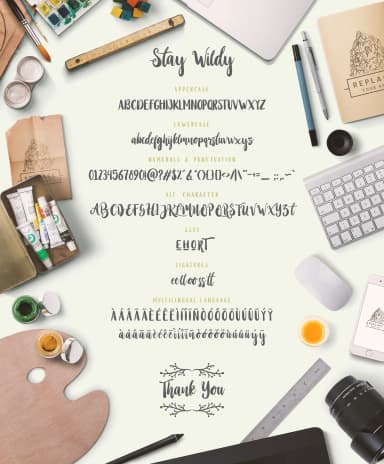
Stay Wildy by Dikas Studio is a flowing script typeface that channels the organic energy of contemporary hand-lettering and modern calligraphy. Inspired by the natural variations and movement found in penmanship, this font brings authentic calligraphic character to digital designs while maintaining strong legibility across different sizes and applications. This expressive script excels in creating memorable custom event invitations, where its distinctive letterforms add warmth and personality to special occasions. Brand designers leverage its handwritten appeal for luxury cosmetics packaging, where authenticity resonates with conscious consumers seeking artisanal quality. The font transforms social media graphics into personal, engaging content that stands out in crowded feeds, particularly effective for creative entrepreneurs building visual brands. From boutique product labels to personalized greeting cards and hand-lettered wedding signage, Stay Wildy brings a crafted, intimate quality that feels both contemporary and timeless. The flowing nature of these letterforms makes Stay Wildy adaptable to both refined and casual design contexts, working equally well for upscale stationery and DIY creative projects. Its design philosophy bridges the gap between formal calligraphic tradition and modern expressiveness, giving designers a tool that never feels outdated or overly ornate. Get Stay Wildy on Creative Fabrica and experience how genuine hand-lettered typography transforms your creative work.
- Elegant, Flowing, Stay Wildy
Stay Wildy Font is a script font that shines as a display or heading face. Pair it with a clean sans-serif or serif font for body text β the contrast creates a clear hierarchy while the two styles stay balanced and easy to read.
Stay Wildy Font